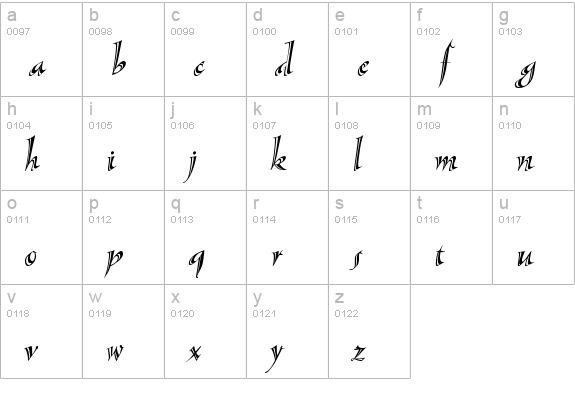
Sassafras Lx Italic is a distinctive, italic variant in the Sassafras typeface family \xE2\x80\x94 well suited to design and typography projects.
Introducing Sassafras Lx Italic, an exquisite font that effortlessly combines elegance with a touch of playfulness. This font is perfect for those seeking a unique and sophisticated design solution. With its delicate curves and graceful strokes, Sassafras Lx Italic adds a sense of charm and versatility to any project. One of the most remarkable aspects of Sassafras Lx Italic is its ability to captivate and engage the viewer. Its italicized form adds a sense of movement and dynamism, making it ideal for titles, headings, and decorative elements. Whether used in print or digital media, this font is bound to leave a lasting impression. But what truly sets Sassafras Lx Italic apart is its availability for free. Yes, you read it right! This incredible font is freely available to download at FontsMarket.com. Now you can enhance your designs with this stunning font without breaking the bank. It's a perfect opportunity to explore your creativity and experiment with typography without any restrictions. Whether you're a professional designer or a hobbyist, Sassafras Lx Italic is a must-have addition to your font collection. Its versatility allows it to seamlessly integrate into various design styles, from elegant wedding invitations to modern branding projects. The possibilities are endless with this remarkable typeface. So why wait? Take advantage of this incredible offer and download Sassafras Lx Italic today at FontsMarket.com. Elevate your designs with this captivating font that combines elegance, playfulness, and the added bonus of being free. Let your creativity soar as you explore the endless possibilities this font has to offer.